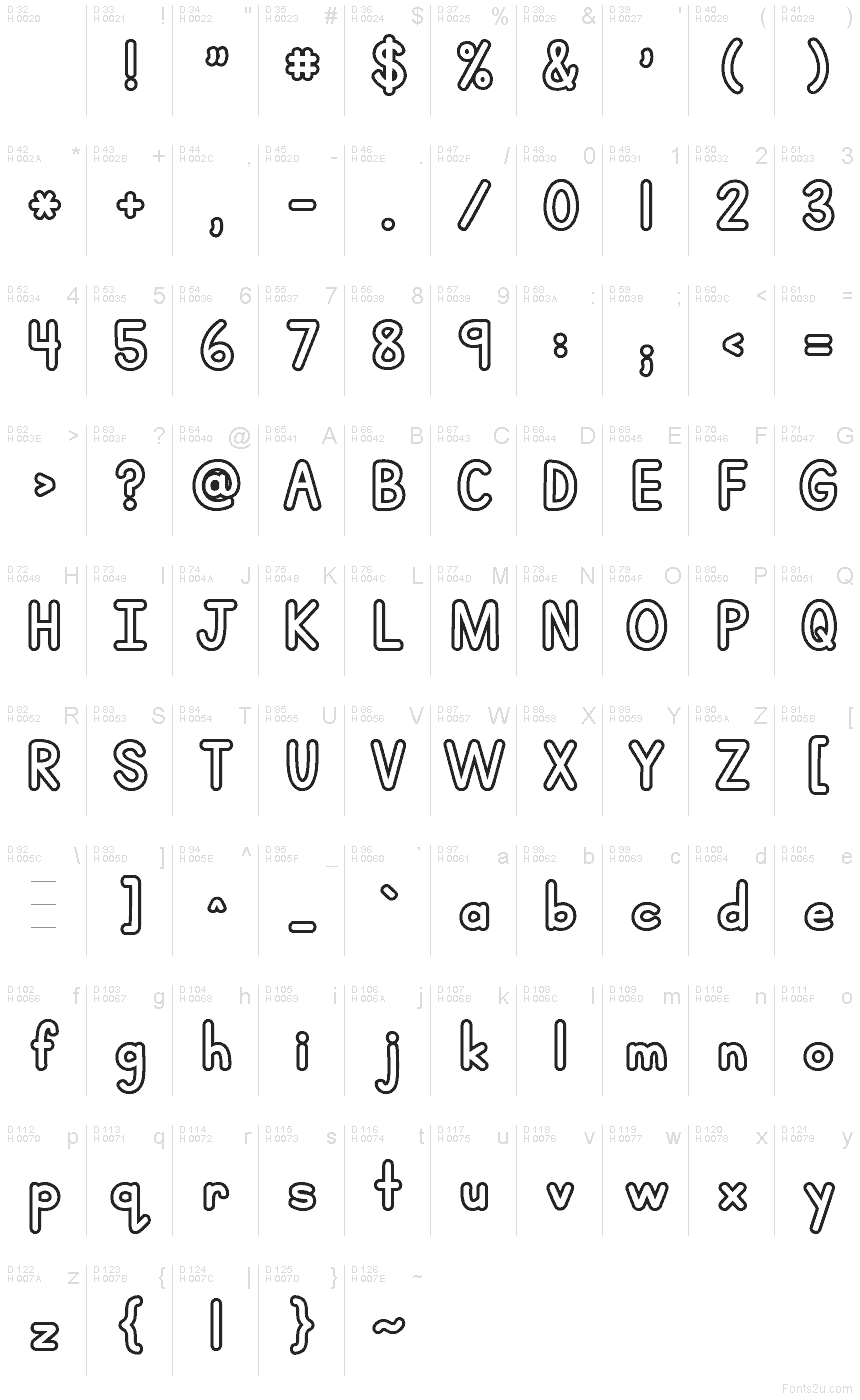
KG Teacher Created Outline 2
KG Teacher Created Outline 2 font by Kimberly Geswein is a free school script typeface that feels like it came straight off a favorite classroom bulletin board. Rounded, even letters with a clean bubble outline invite color, tracing, and handwriting practice, giving kids plenty of room to explore inside each shape. The friendly rhythm and open counters keep words easy to read from a distance, whether they’re on worksheets, anchor charts, or labels.
Using KG Teacher Created Outline 2, this free font shines on coloring pages, classroom posters, interactive notebooks, student name tags, stickers, and learning centers. It’s a natural fit for early education resources, homeschool printables, and kid-focused party decor where you want playful structure without visual chaos. Pair this font with a simple rounded sans serif for body text and keep it at larger sizes so that the outlined strokes stay crisp and inviting.